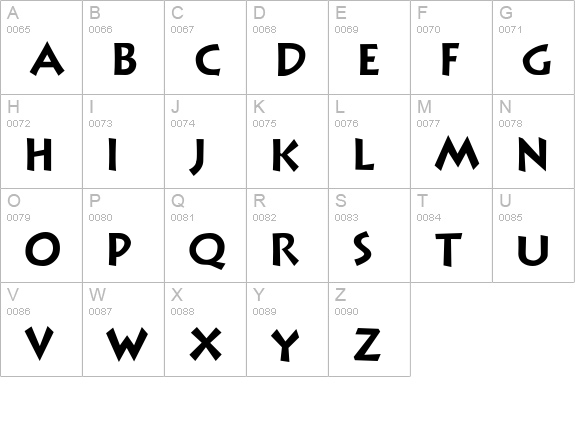
NuevoLitho Plain Font Details
NuevoLitho Plain is a modern and versatile font that exudes sophistication and elegance. Its clean lines and sharp edges make it perfect for a wide range of design projects, from branding to editorial design. This font strikes the perfect balance between professionalism and creativity, making it a valuable addition to any designer's toolkit. What sets NuevoLitho Plain apart is not only its sleek design but also its accessibility. This font is available for free download at FontsMarket.com, allowing designers to easily incorporate it into their projects without any financial barrier. Whether you're working on a logo, website, or print material, NuevoLitho Plain is sure to elevate your design with its timeless appeal. With its timeless style and free availability, NuevoLitho Plain is a must-have font for any designer looking to make a lasting impression. Download it today and see the difference it can make in your designs.